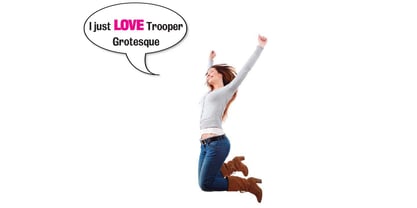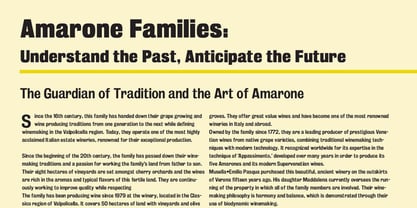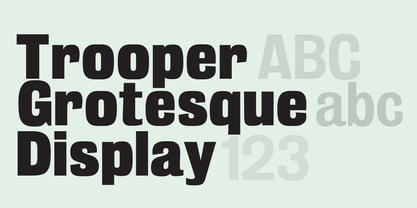
Trooper Grotesque Font
Trooper Grotesque Font is perfect for industrial branding, military-inspired designs, rugged outdoor equipment logos, tough automotive graphics, strong corporate identities, bold security company materials, resilient construction branding, powerful sports marketing, commanding headlines, and authoritative institutional communications.
What makes Trooper Grotesque Font so exciting is its unwavering strength that combines military precision with industrial robustness, creating typography that communicates reliability, durability, and uncompromising toughness. This commanding grotesque typeface embodies resilience and authority, delivering visual communication that stands strong under pressure and commands respect.
The Trooper Grotesque Font family includes light, regular, medium, bold, and black weights, complete with condensed variations and military-inspired design elements that provide designers with comprehensive tools for creating powerful and memorable typography that embodies strength and unwavering determination.
Deploy unbreakable strength with Trooper Grotesque Font Free Download, a powerfully engineered grotesque typeface that brings military precision and industrial toughness to demanding design projects. This exceptional font embodies the perfect fusion of tactical reliability and professional authority, making it the definitive choice for brands that represent strength, endurance, and uncompromising quality.
The robustly constructed letterforms of Trooper Grotesque Font showcase industrial strength with military character that creates instant recognition of reliability and tactical precision. Each character displays meticulous attention to maintaining the rugged durability that defines military-grade quality while ensuring superior readability and professional versatility. The font's strong construction and tactical spacing contribute to its commanding appearance and authoritative appeal.
Industrial brands and security-focused organizations consistently choose Trooper Grotesque Font for projects requiring unbreakable strength and tactical authority. The comprehensive character set includes uppercase and lowercase letters, numerals, extensive punctuation, international accents, and military-inspired elements that provide complete support for industrial branding applications and authoritative design compositions.
The tactical versatility of Trooper Grotesque Font ensures exceptional performance across both traditional print and modern digital platforms. Whether developing industrial brand identities, creating military-inspired marketing campaigns, or designing authoritative corporate materials, this remarkable typeface delivers consistent strength that resonates with audiences demanding reliability and uncompromising quality.
Transform your strongest projects with Trooper Grotesque Font Free Download. This extraordinary grotesque typeface brings military precision and industrial strength to typography, making it the essential choice for designers who create experiences that define unbreakable reliability and commanding authority in contemporary design.